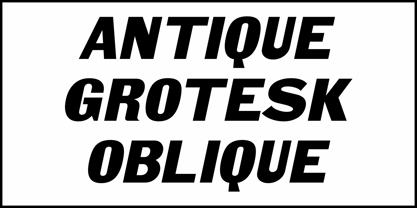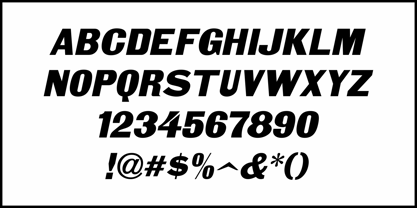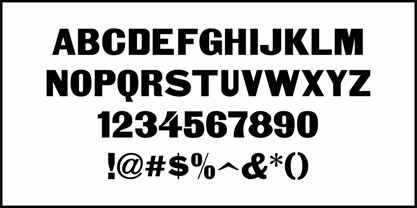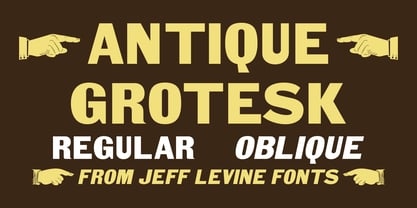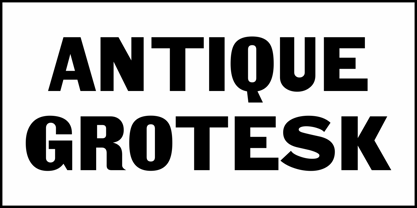
Antique Grotesk JNL
by Jeff Levine
The Antique Grotesk JNL Font Family was designed by Jeff Levine and published by Jeff Levine. Antique Grotesk JNL contains 2 styles and family package options. More about this family
Antique Grotesk JNL is based on Royal Gothic, a grotesk sans serif from American Type Founders in 1897, and is available in both regular and oblique versions.